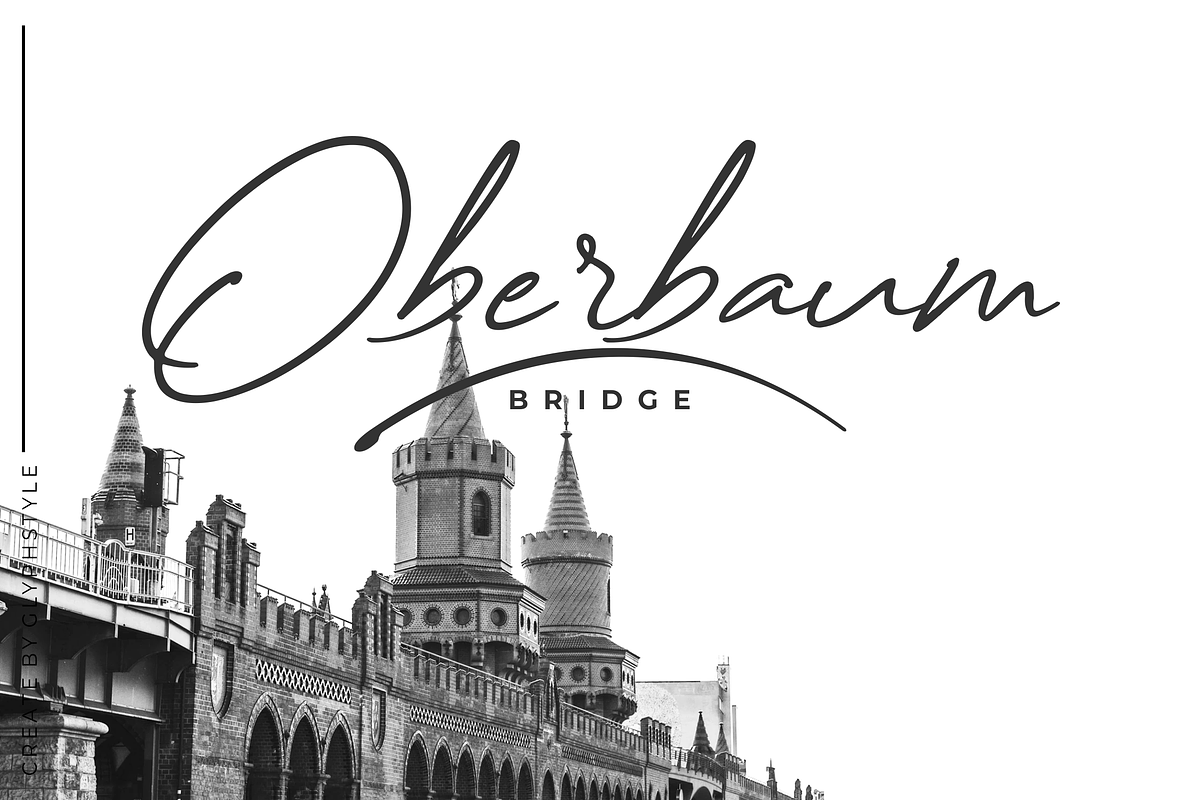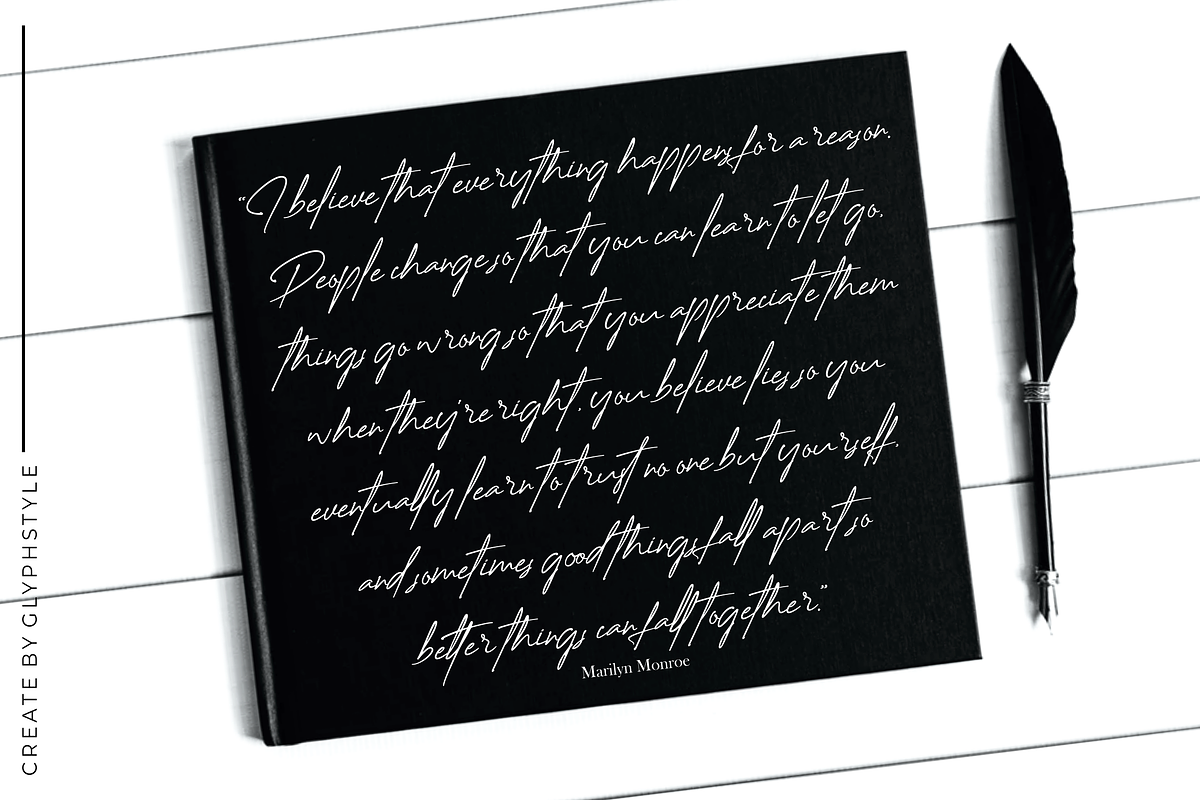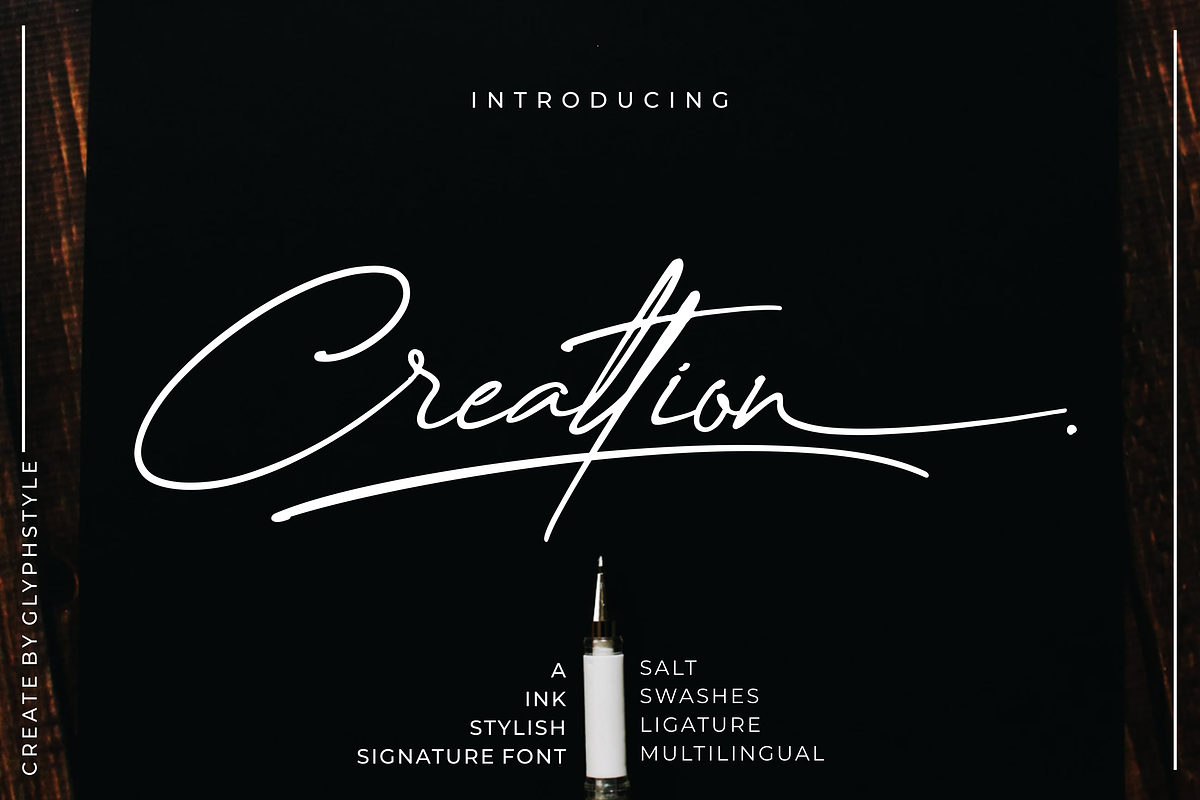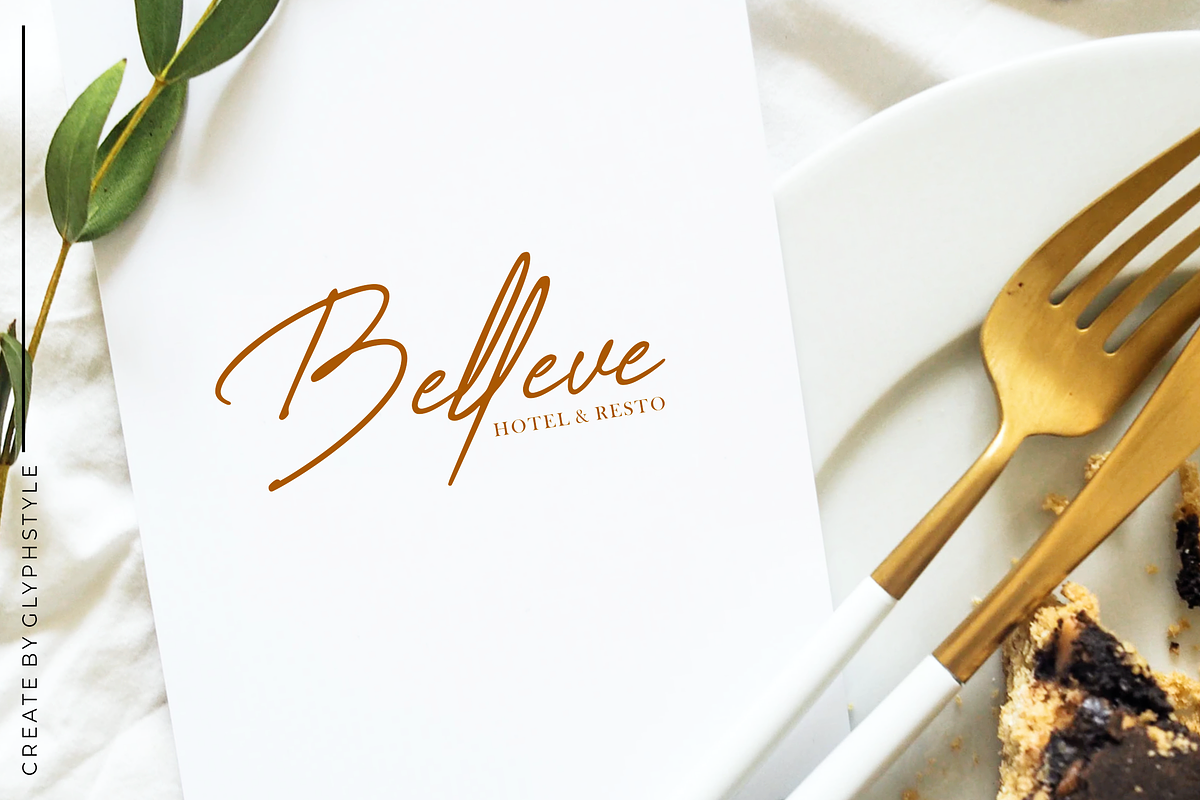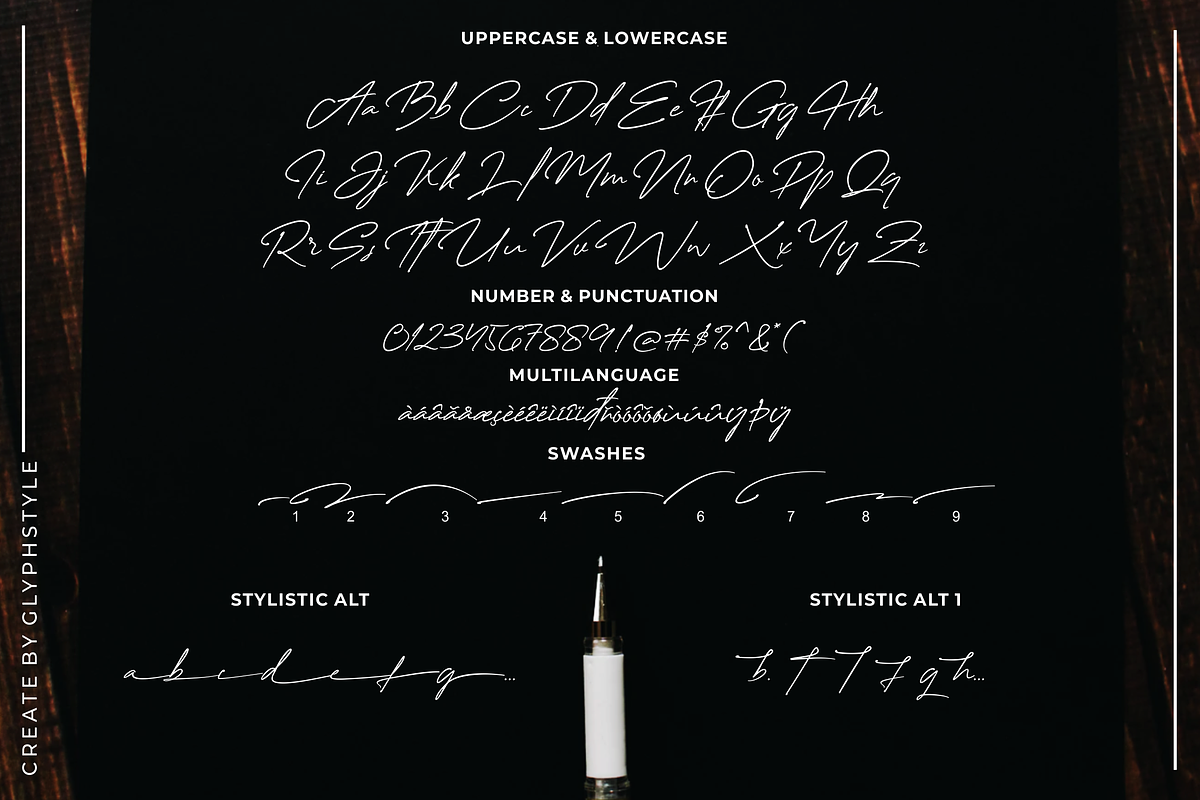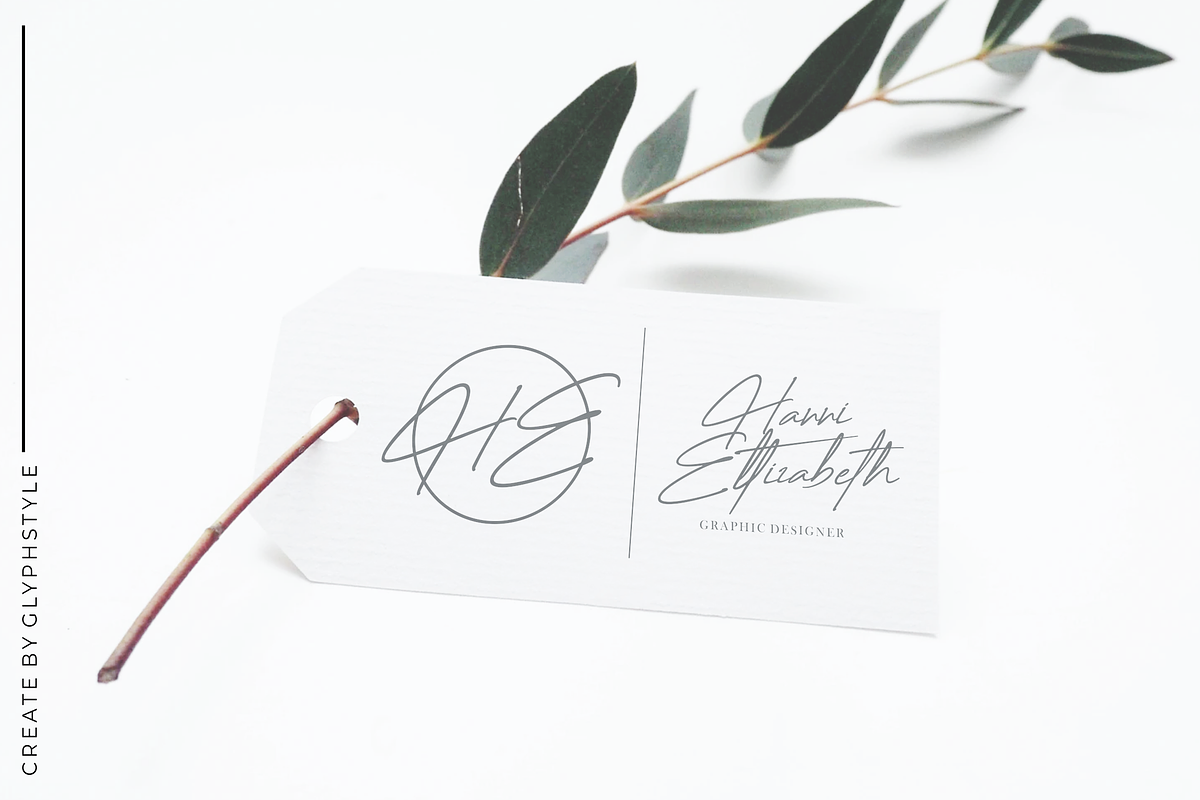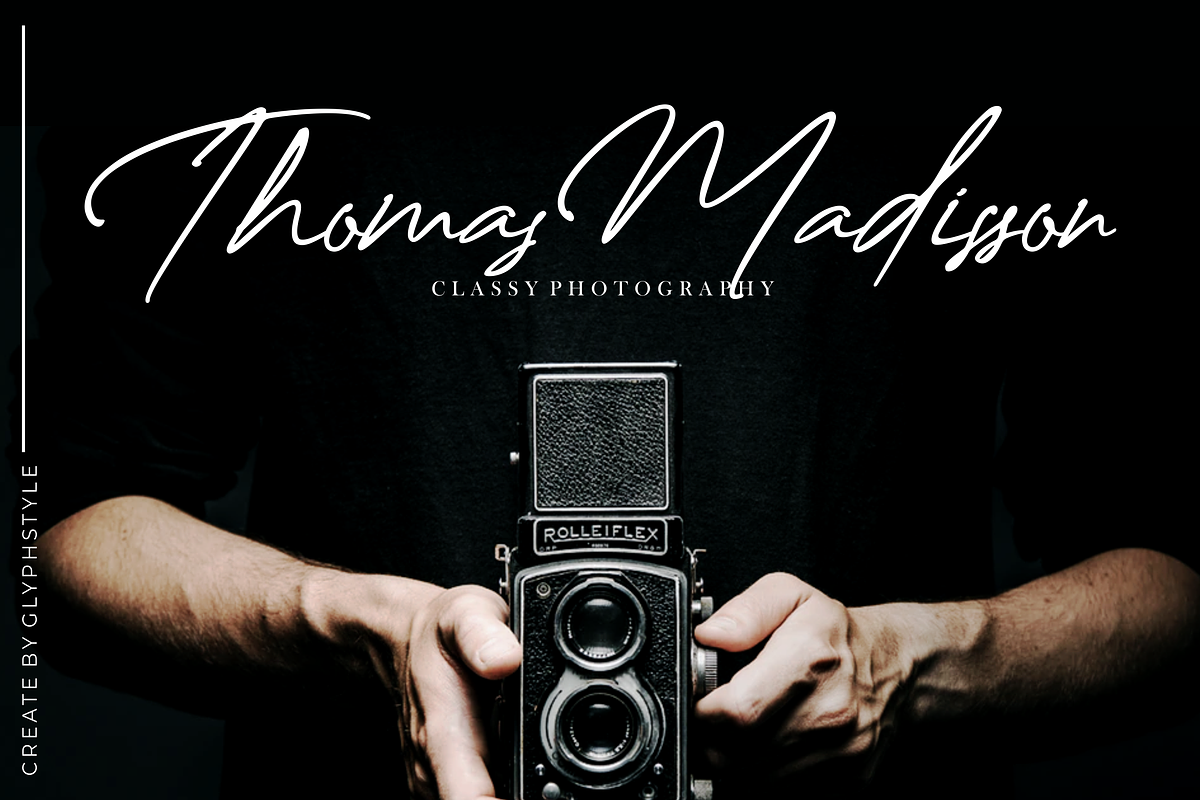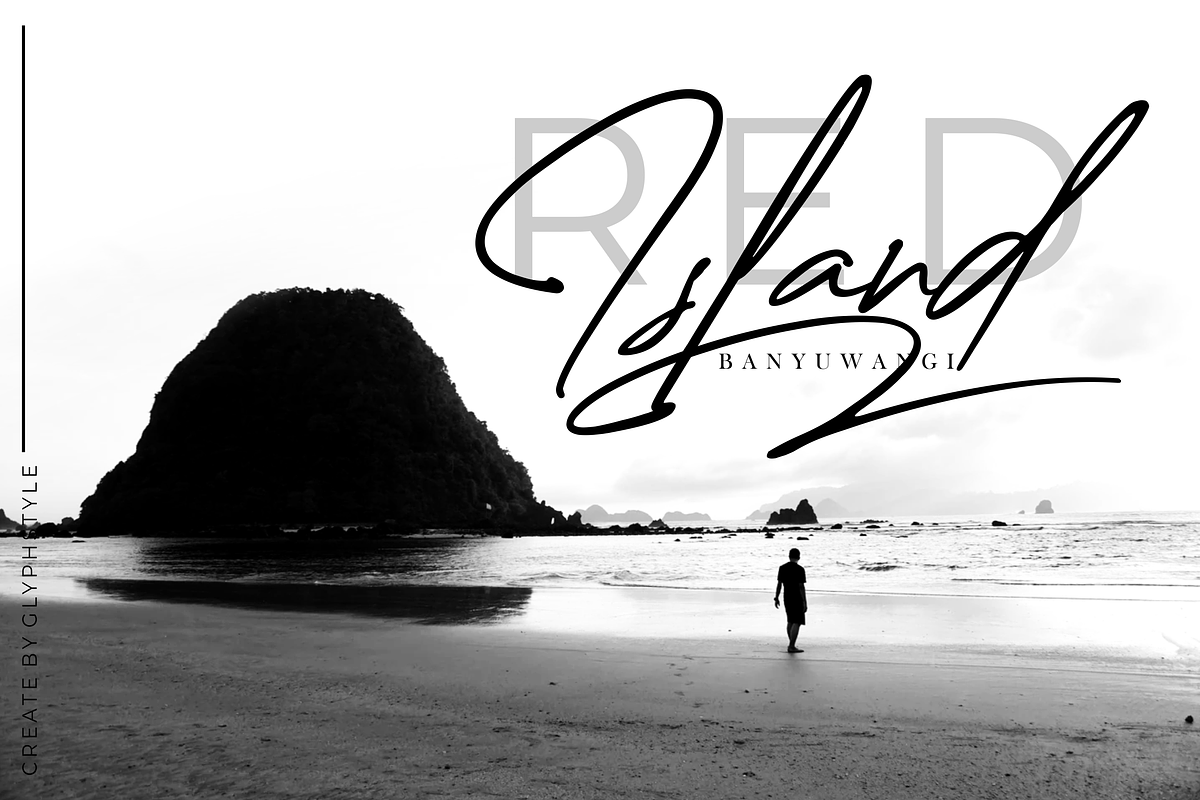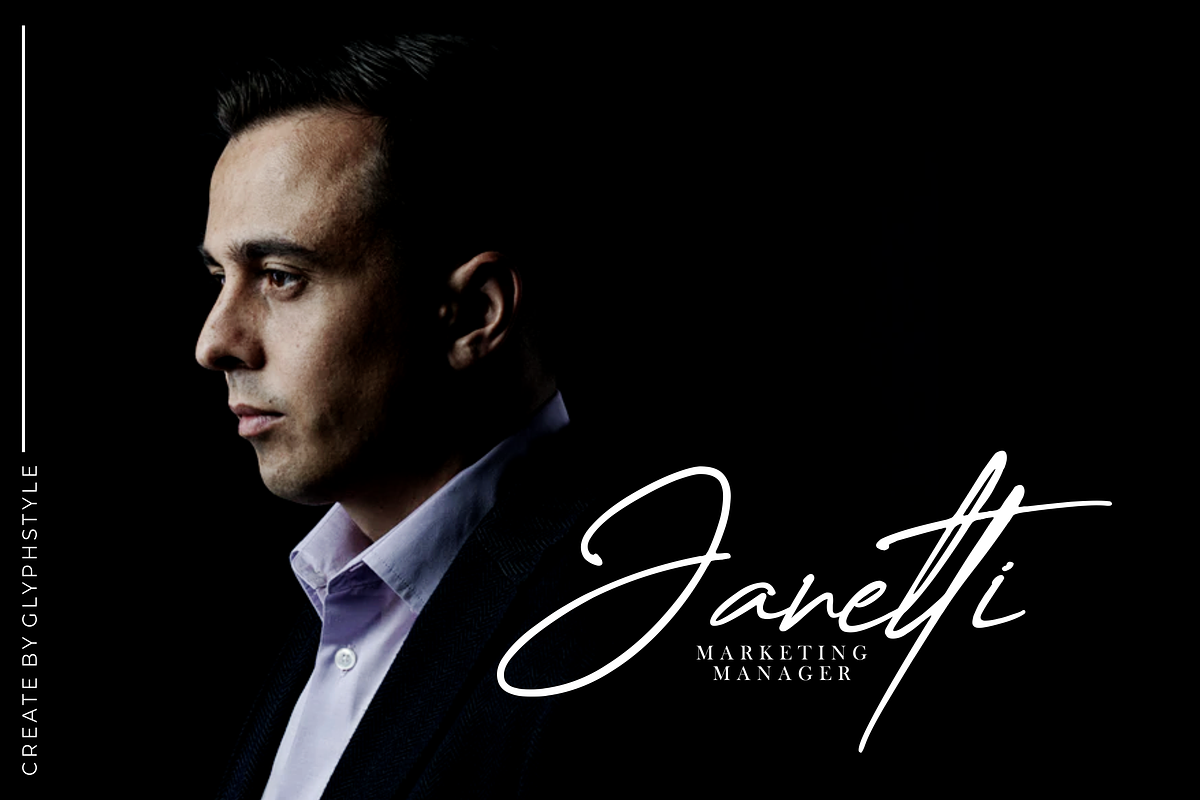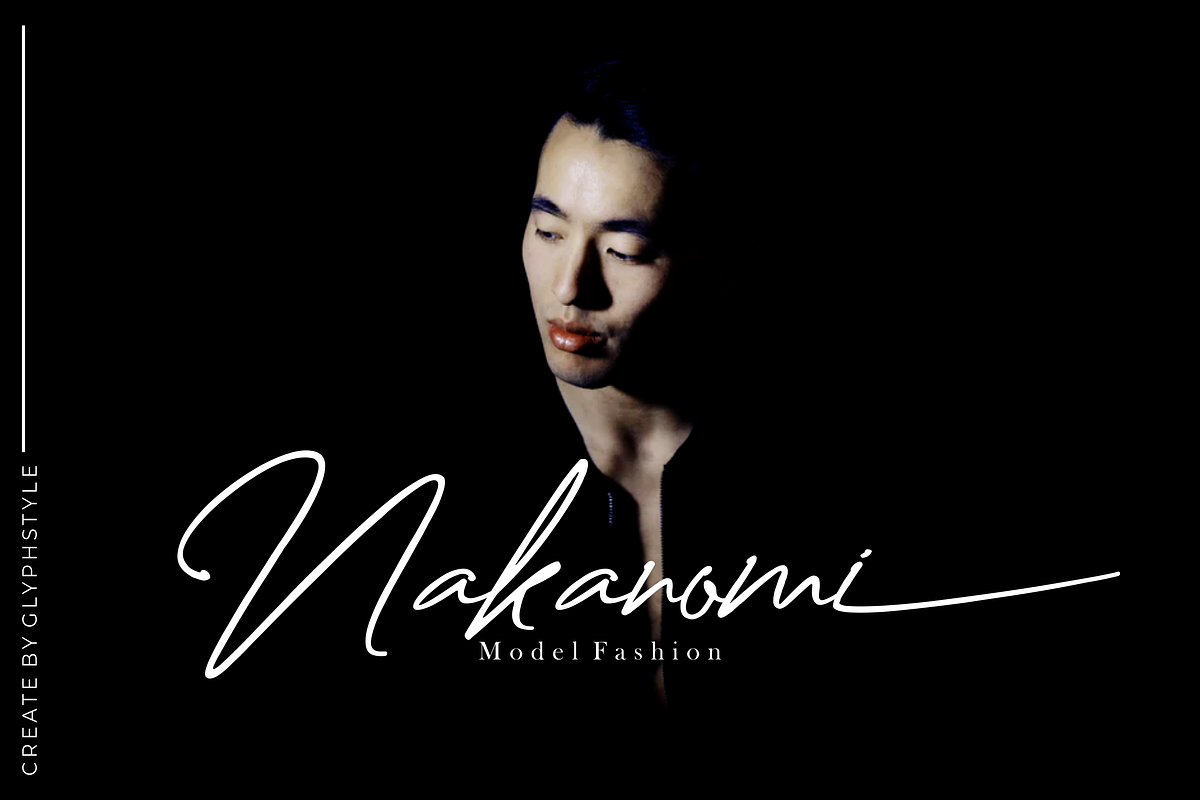
Creattion a Ink Stylish Signature
Creattion is a signature text with a natural style & ink pen effect. Elegant and manly font with natural hand-drawn.
Creattion is perfect for branding projects, logos, wedding designs, social media posts, advertisements, product packaging, product designs, labels, photography, watermarks, invitations, stationery, and any project that requires a sense of signature and ink style.
- Font feature
Uppercase, Lowercase, Numerals & Punctuations, Stylistic alternate, Stylistic set Ligature, Swashes, Multilanguage